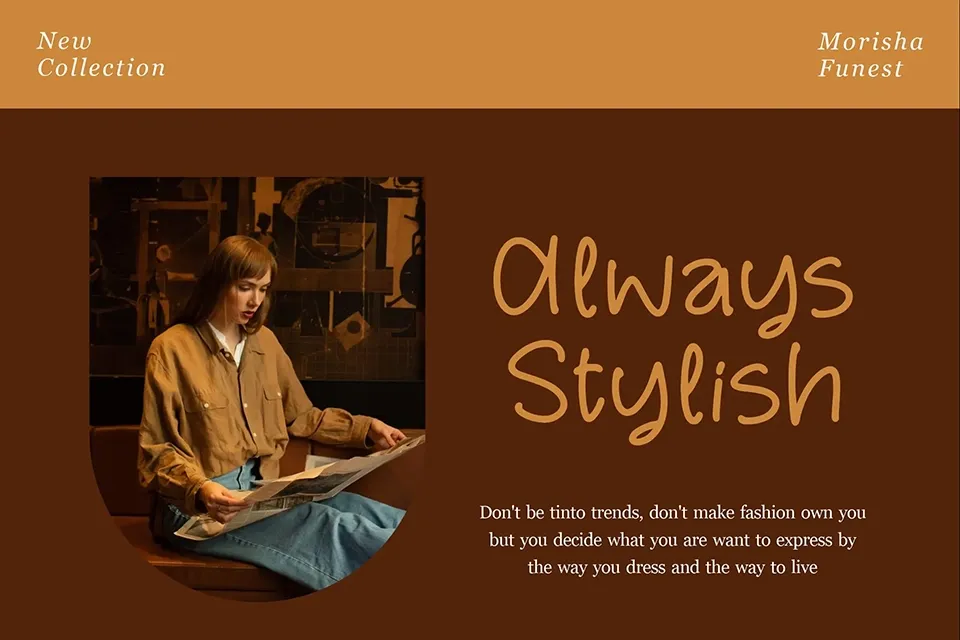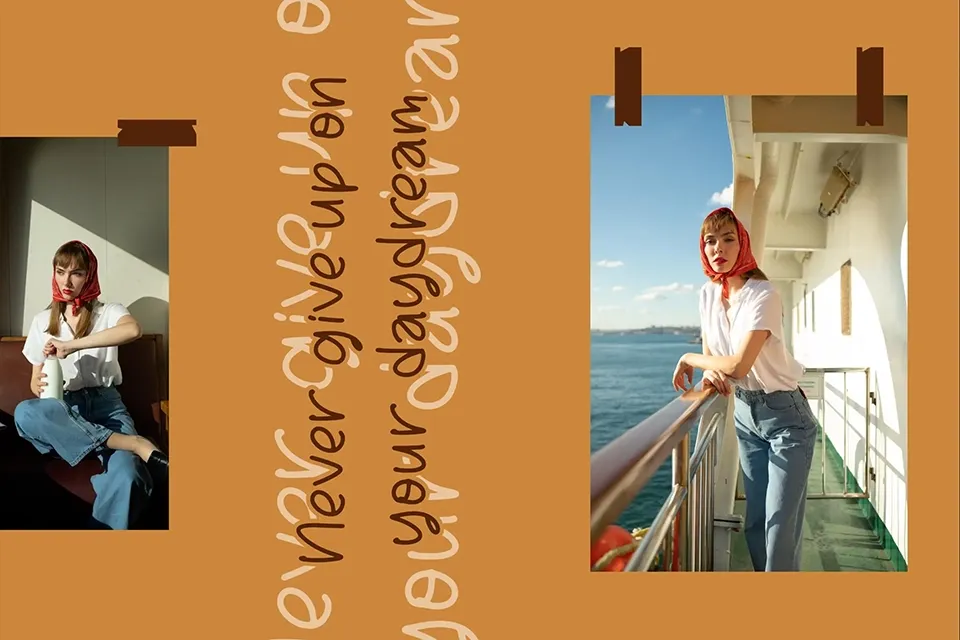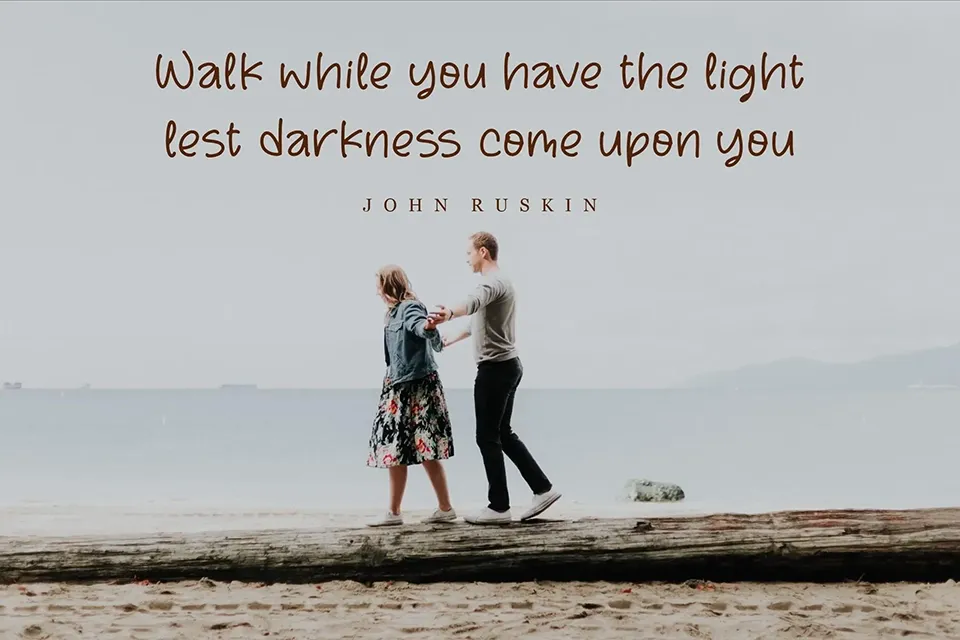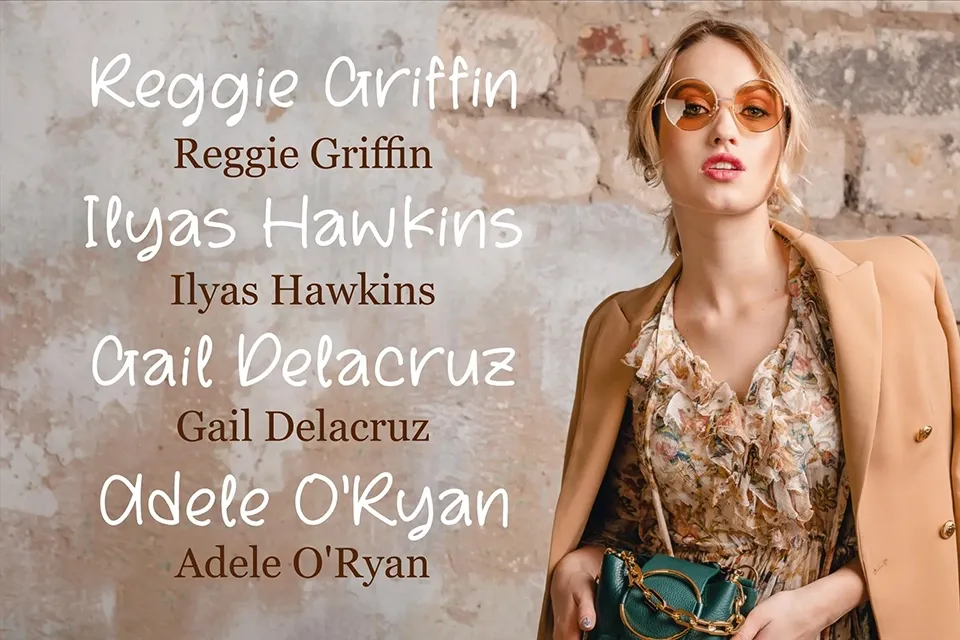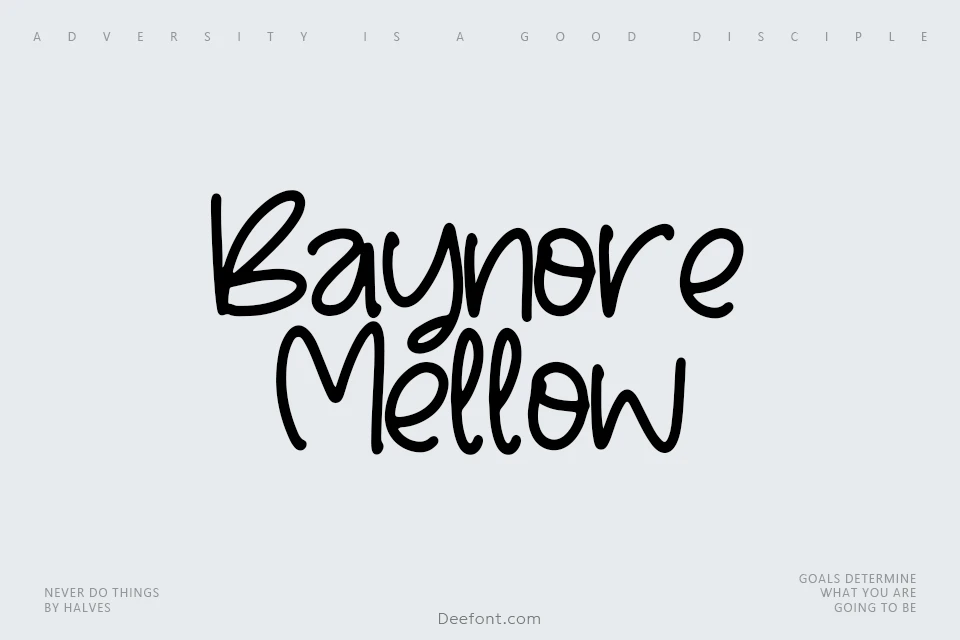
Baynore Mellow Font
Baynore Mellow Font is a natural handwritten font that radiates warmth and authenticity. With its casual and playful strokes, it captures the essence of hand-drawn lettering, making it perfect for projects that require a personal and approachable touch. Ideal for branding, packaging, invitations, and social media designs, Baynore Mellow brings a relaxed yet stylish vibe to any creative work. Its organic flow and unique character ensure versatility while maintaining readability. Whether used for headlines or decorative text, this font adds charm and individuality to your designs. Baynore Mellow is the perfect choice for those seeking a friendly and artistic aesthetic.